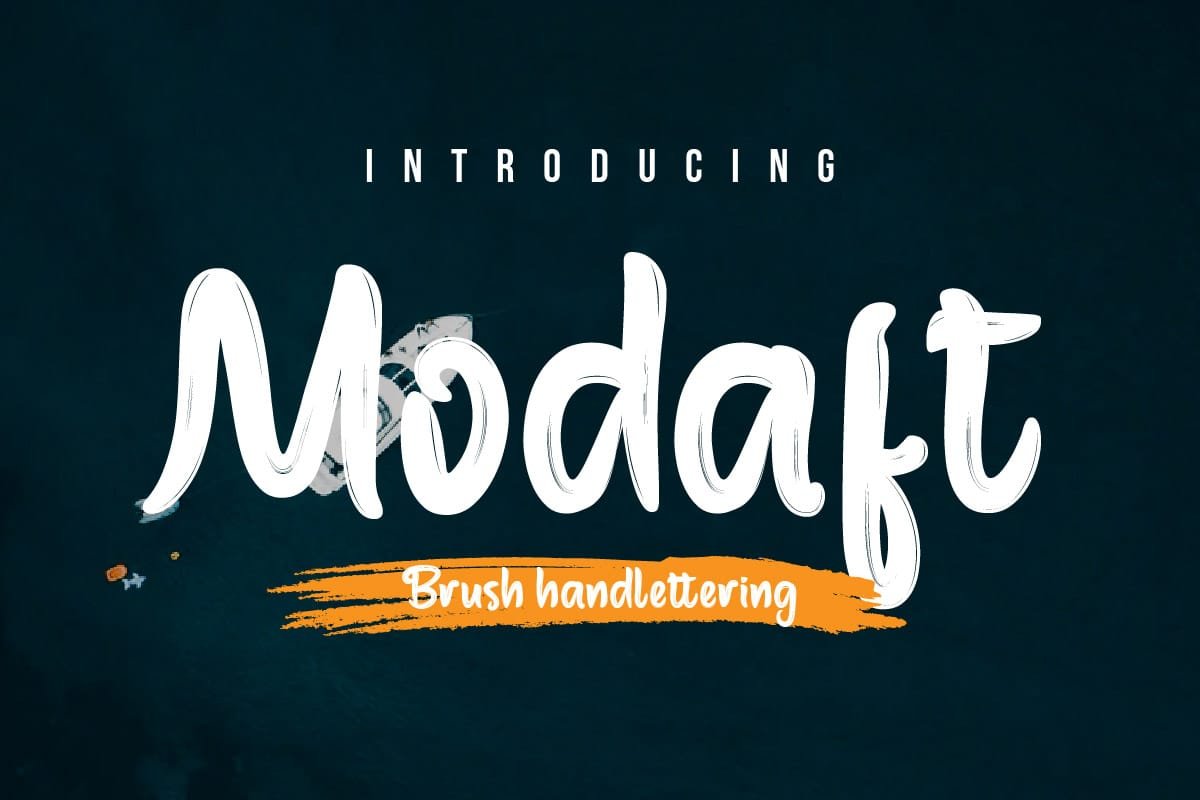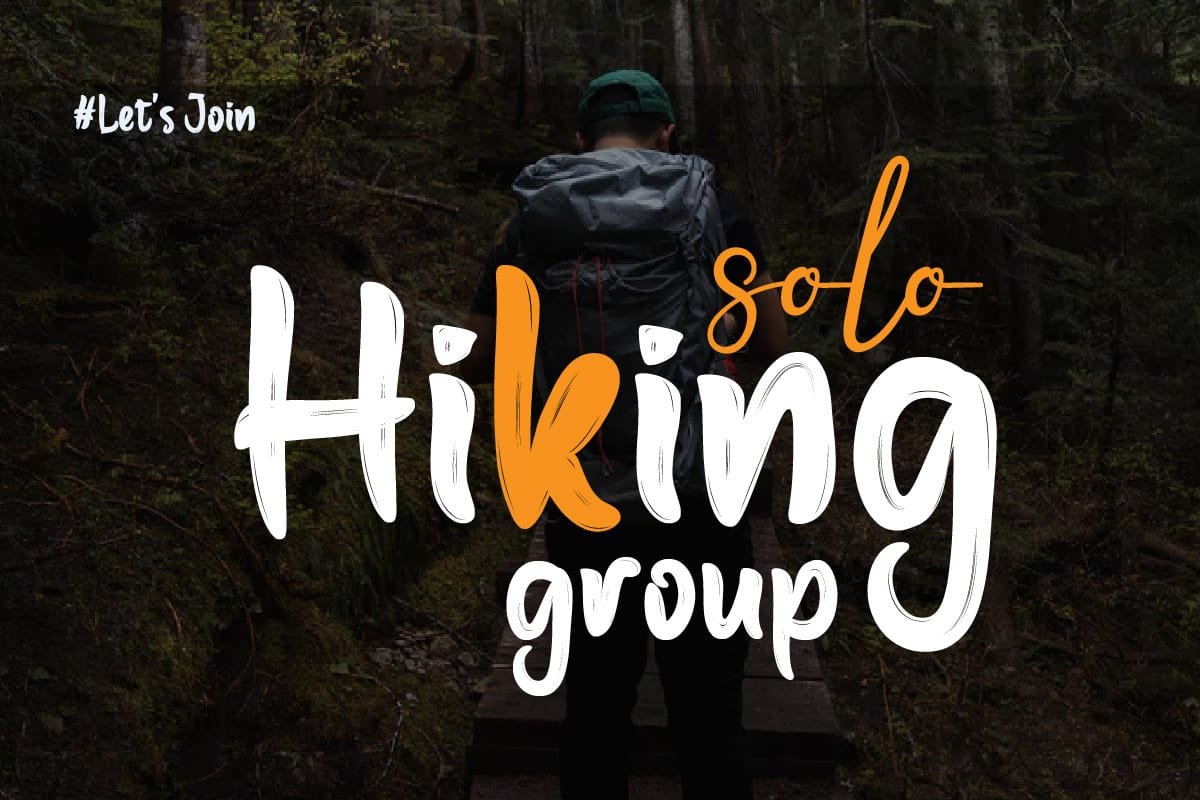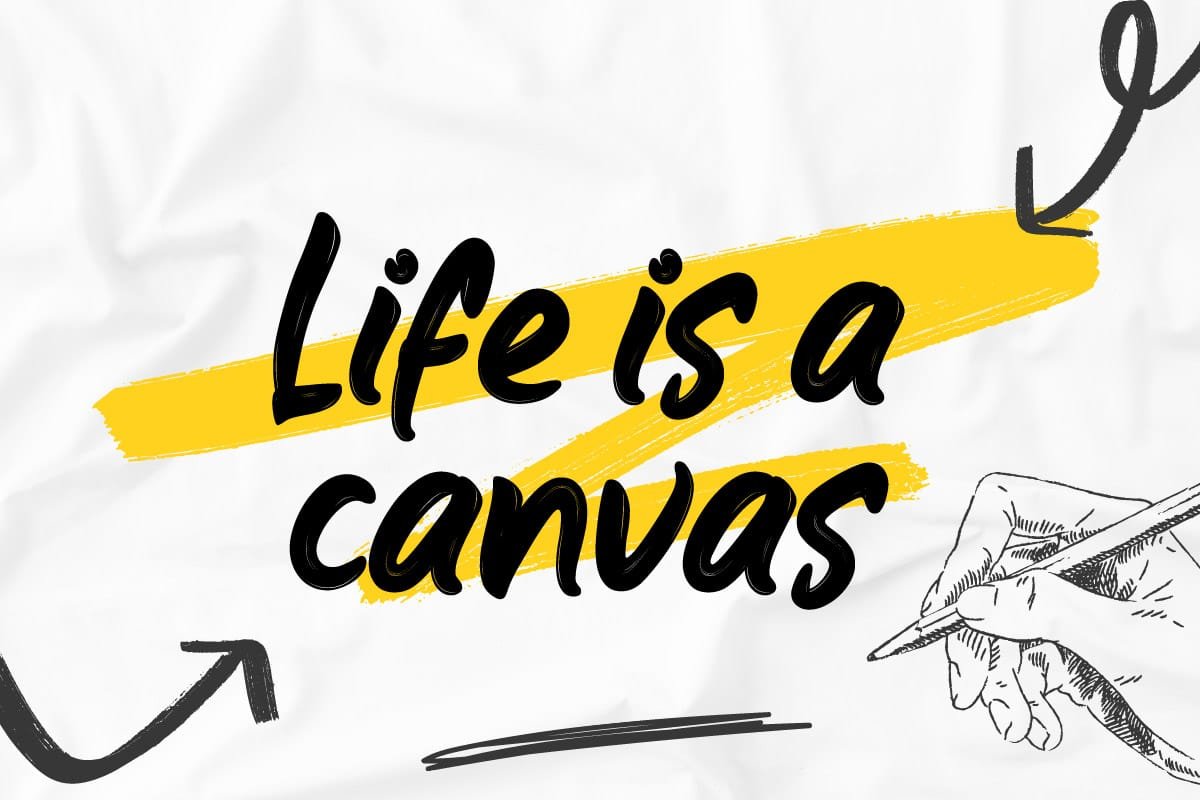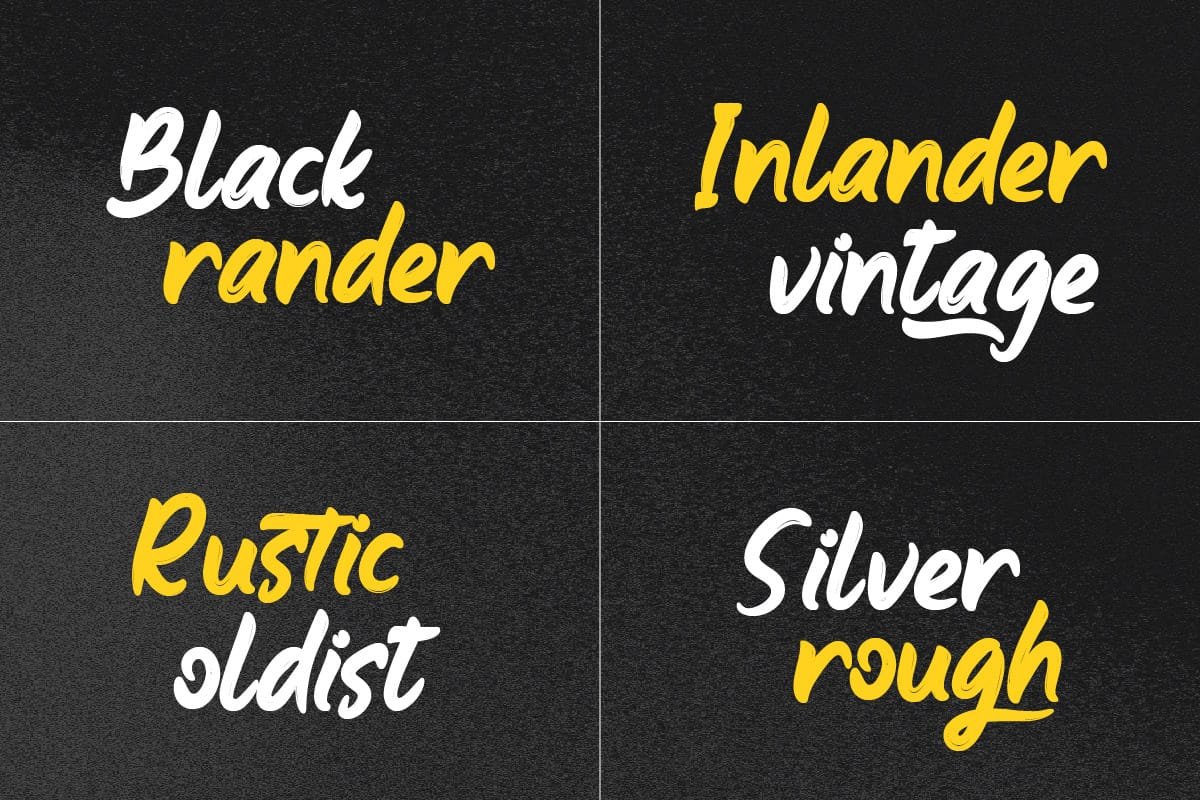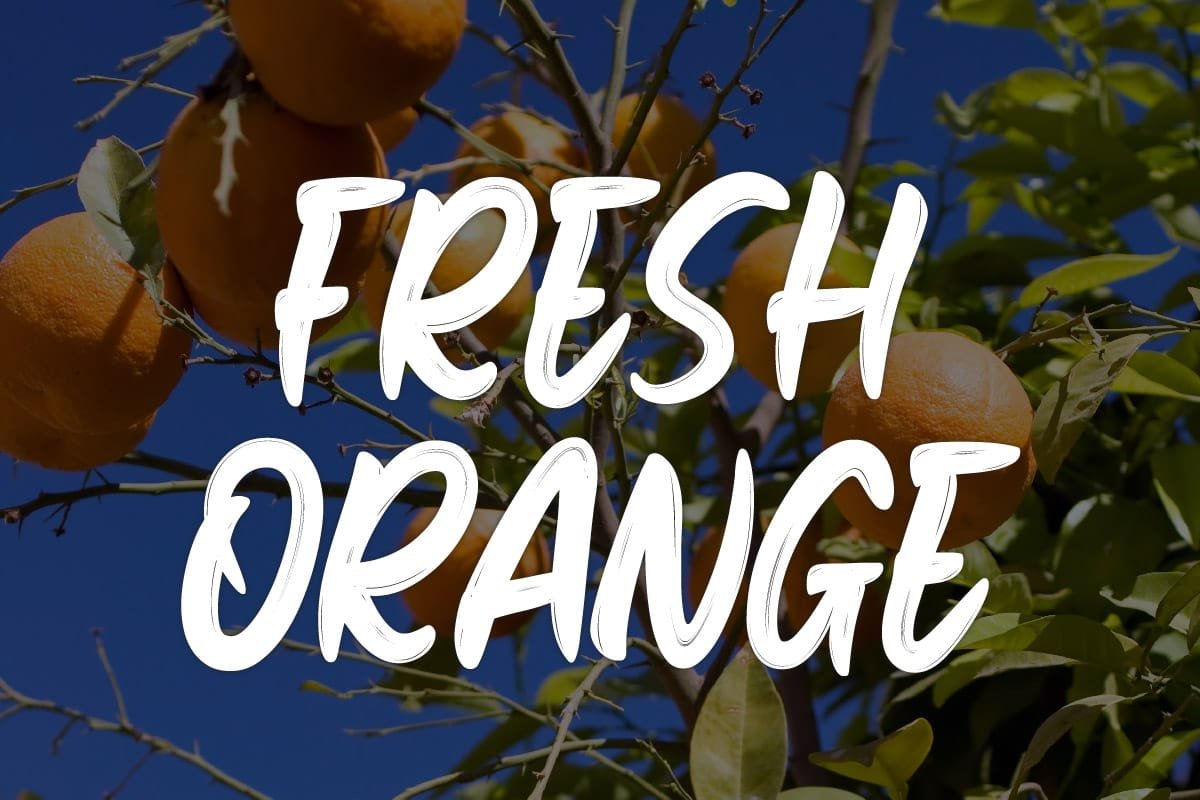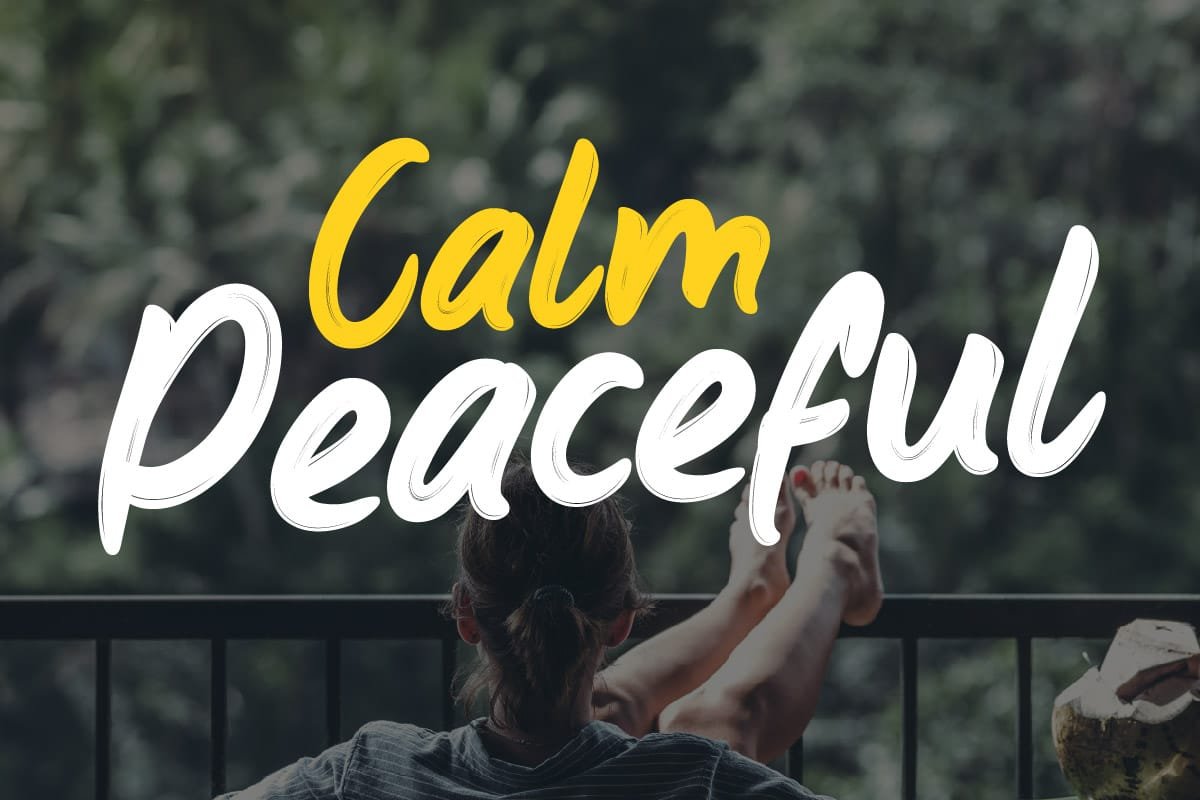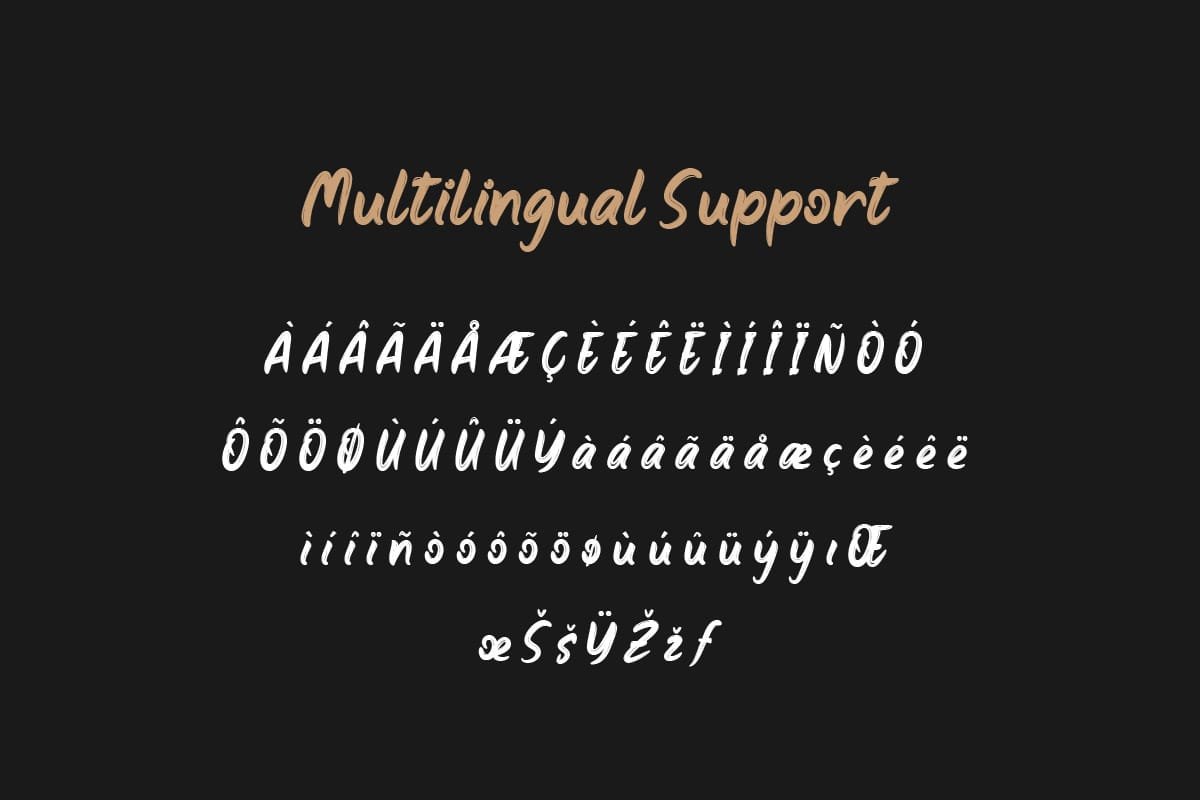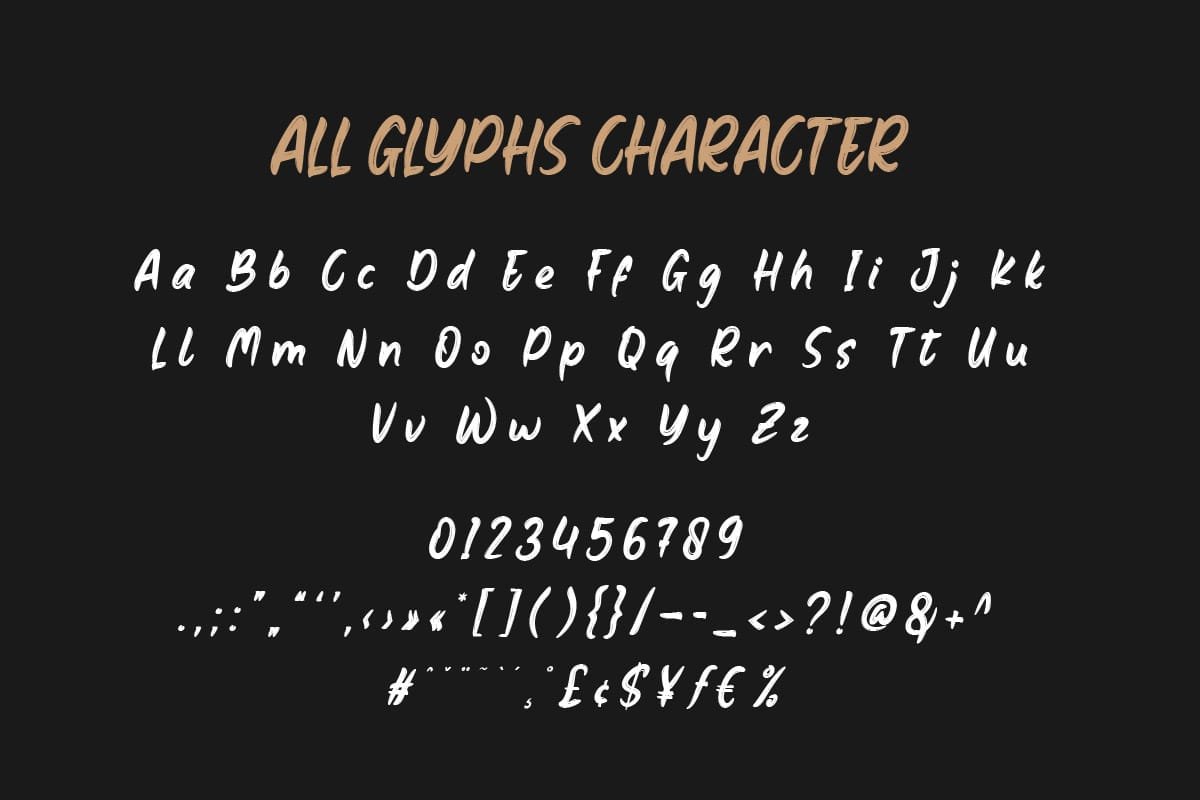
- Modaft – Brush Handwritten Font
Modaft is a brush-written font that brings a touch of sophistication to your designs. Its elegant, flowing characters are perfect for designs that require a touch of elegance and refinement. Whether you’re creating a stylish logo or an elegant invitation, Modaft adds a touch of class that is sure to impress.